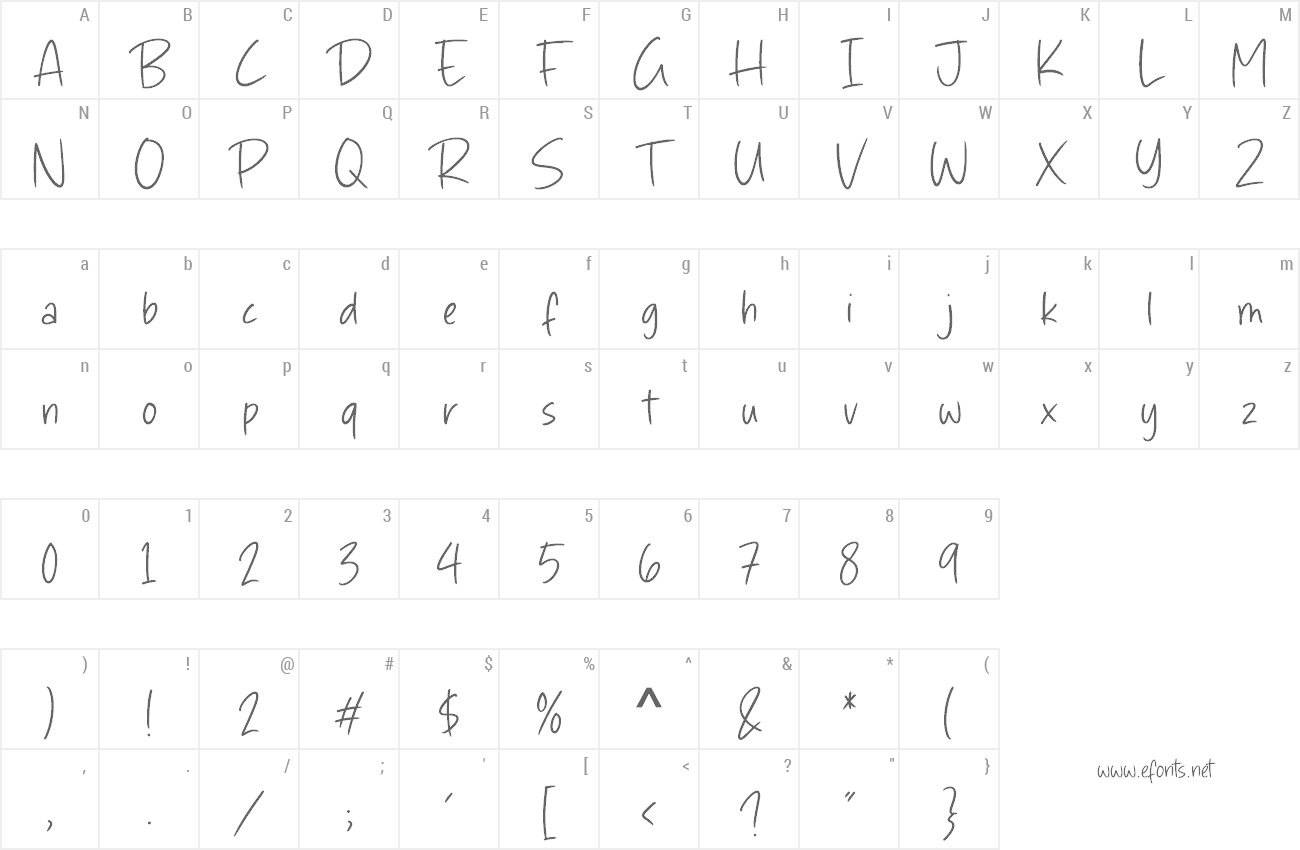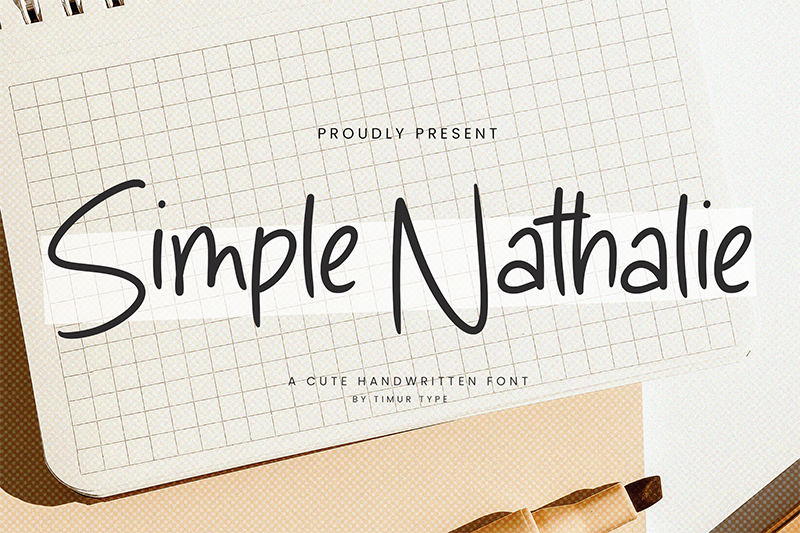
Introduced by Timurtype Studio! Simple Nathalie is a Cute Handwritten Font This font is a charming and playful choice for your design projects. With its soft and delicate letterforms, this font brings a touch of cuteness and innocence. The graceful and fluid strokes give the Simple Nathalie font a gentle and approachable aesthetic, perfect for adding a sweet and friendly touch to your branding materials, greeting cards, and children's books. Whether you're aiming for a whimsical and romantic feel or a fun and cozy vibe, the Simple Nathalie font offers versatility and warmth. Embrace the cute energy of the Simple Nathalie handwritten font and give your designs a delightful and endearing personality These fonts include: OTF TTF WOFF Simple Nathalie Font also supports multilingualism Simple Nathalie Font features premium : -Full Set of standard alphabet and punctuation By installing or using this font, you are agree to the Product Usage Agreement: � This demo font is ONLY for PERSONAL USE. NO COMMERCIAL USE ALLOWED! � Here is the link to purchase full version and commercial license: https://timurtype.com/product/simple-nathalie/ � For Corporate use you have to purchase Corporate license timurtype.studio@gmail.com More... |